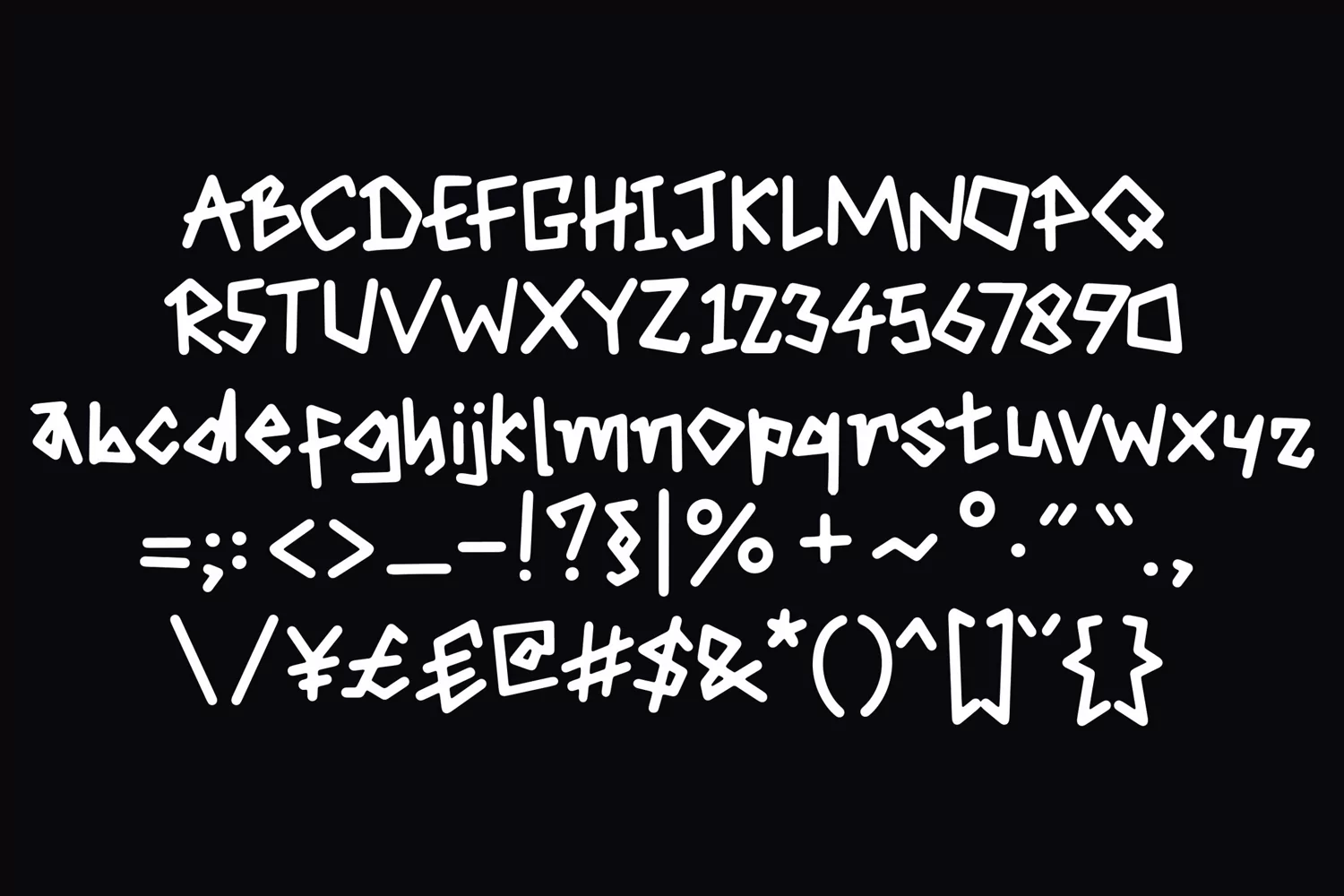
Yacky is a cool and unique display font. This font is ideal for writing web designs, business cards, or pretty much anything else that requires a unique touch.
Yacky